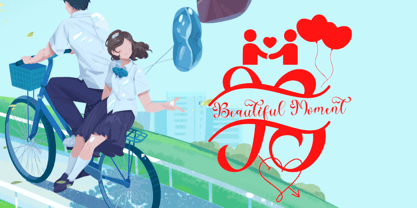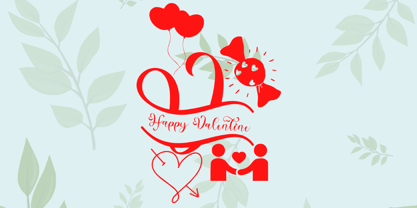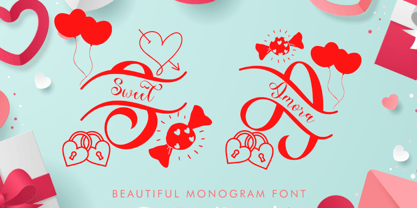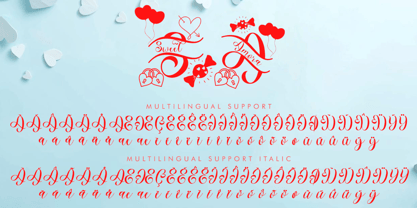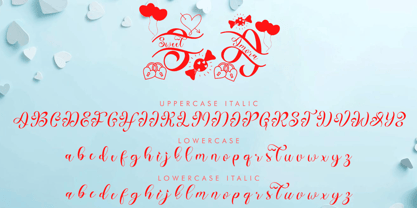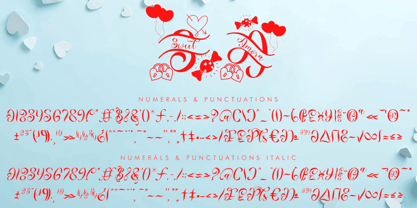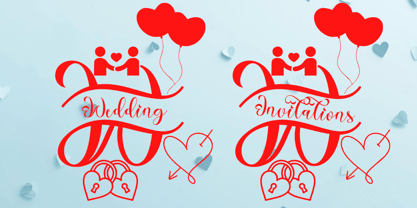
Sweet Amora Monogram
by Yoga Letter
The Sweet Amora Monogram Font Family was designed by Isroni Yoga Prasetya and published by Yoga Letter. Sweet Amora Monogram contains 3 styles and family package options. More about this family
"Sweet Amora Monogram" is a beautiful and lovely monogram font. Available in regular and italic styles, it features monograms, uppercase and lowercase letters, numerals, punctuations, and multilingual support. It's perfect for Christmas, Valentine's Day, weddings, invitations, gifts, prints, winter logos, stickers, holidays, vacations, summer and more.